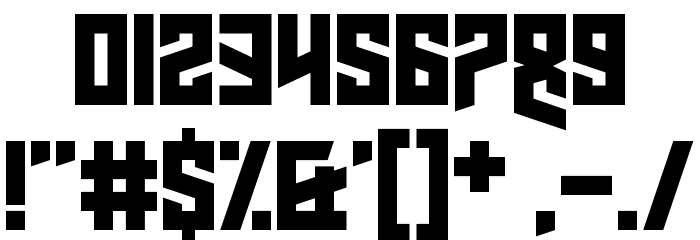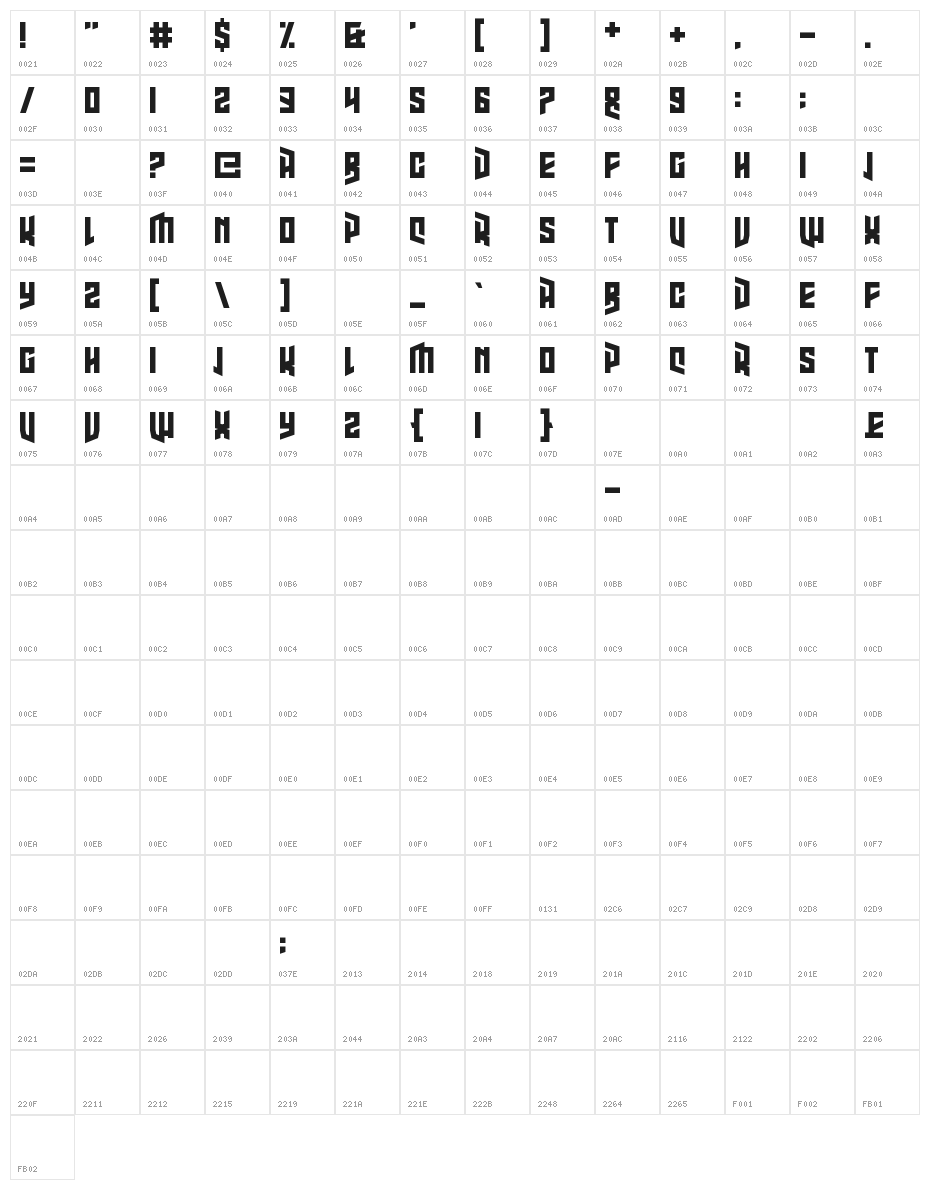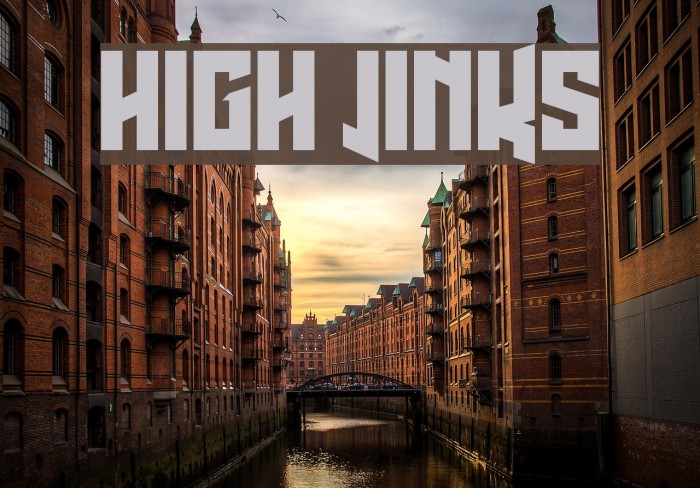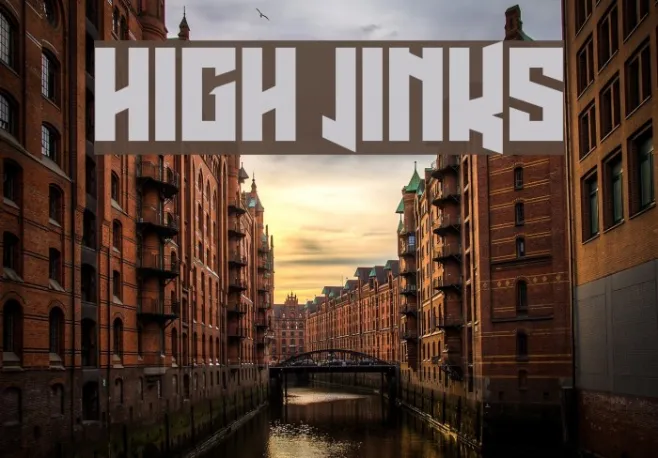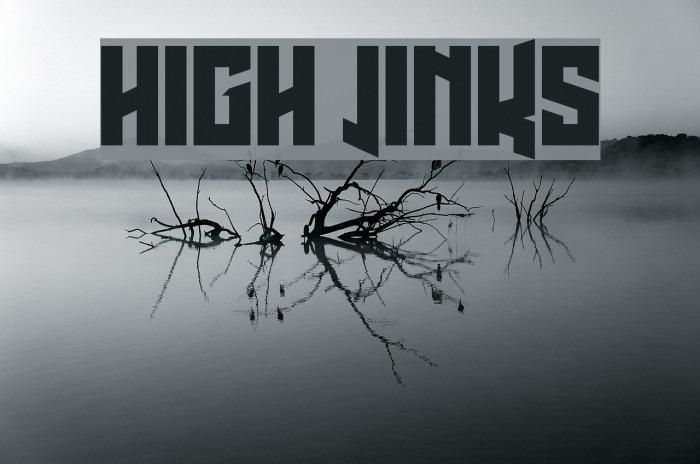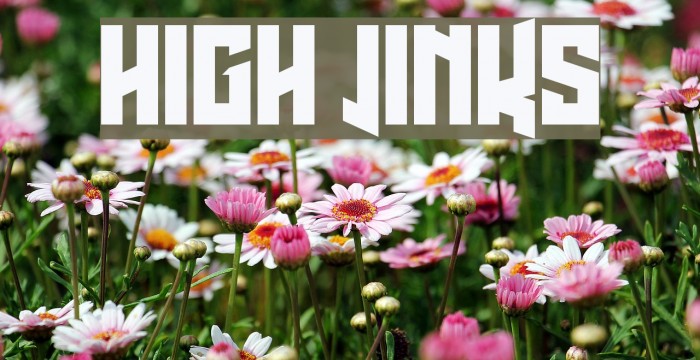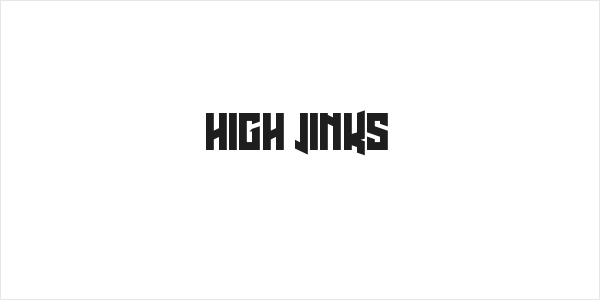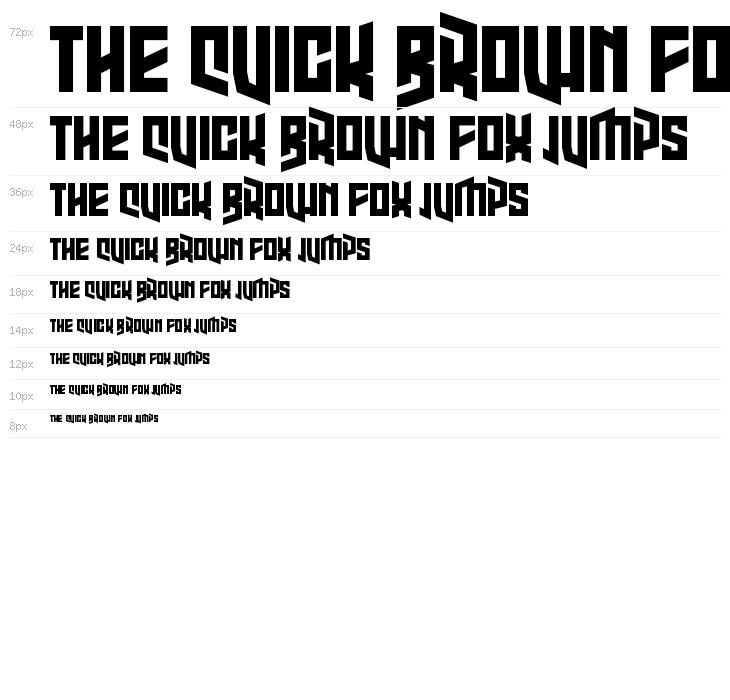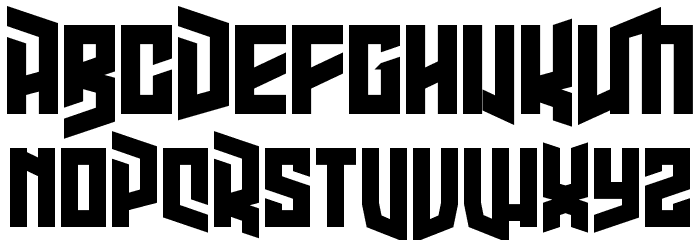
High Jinks Font
High Jinks Description
This font features a bold, geometric design with sharp angles and a blocky appearance. The characters are uniformly thick, creating a strong visual impact. The uppercase letters are particularly striking, with a distinct, edgy style that commands attention. The numbers and special characters maintain this bold aesthetic, ensuring consistency across all glyphs. The font's design is reminiscent of urban graffiti or street art, making it ideal for projects that require a modern, rebellious touch.